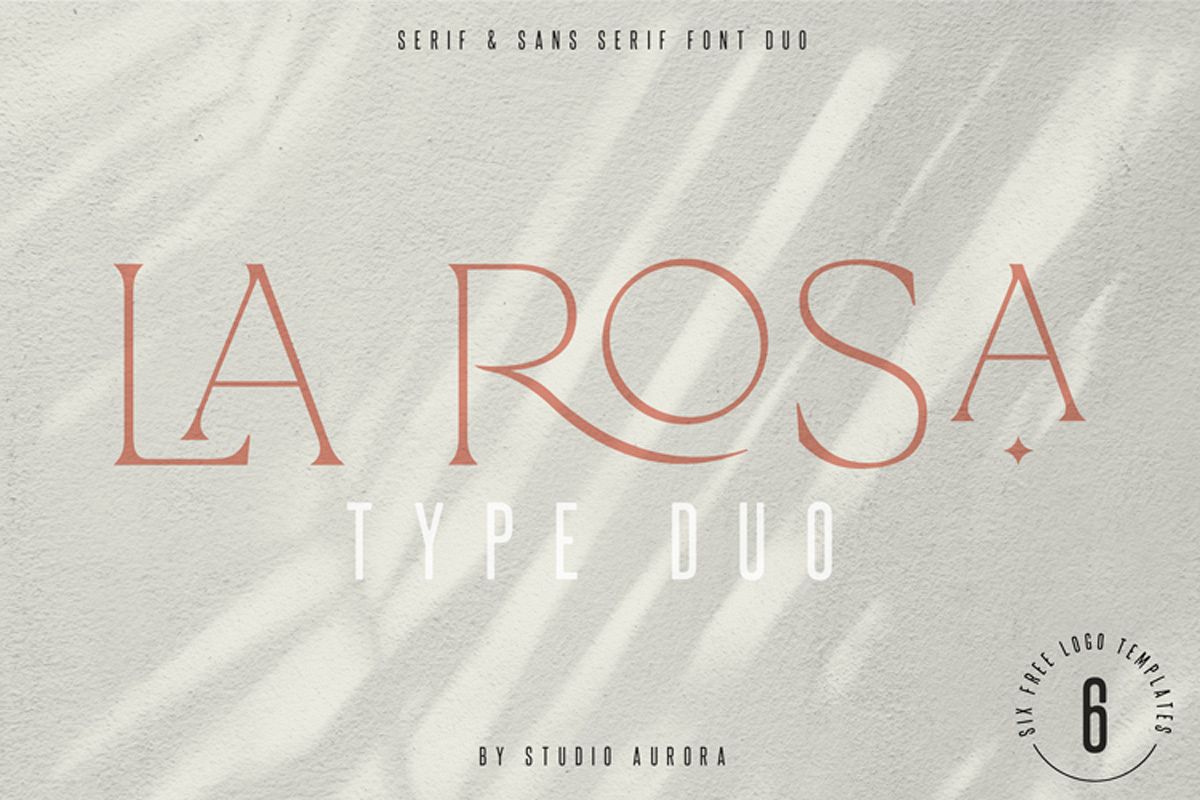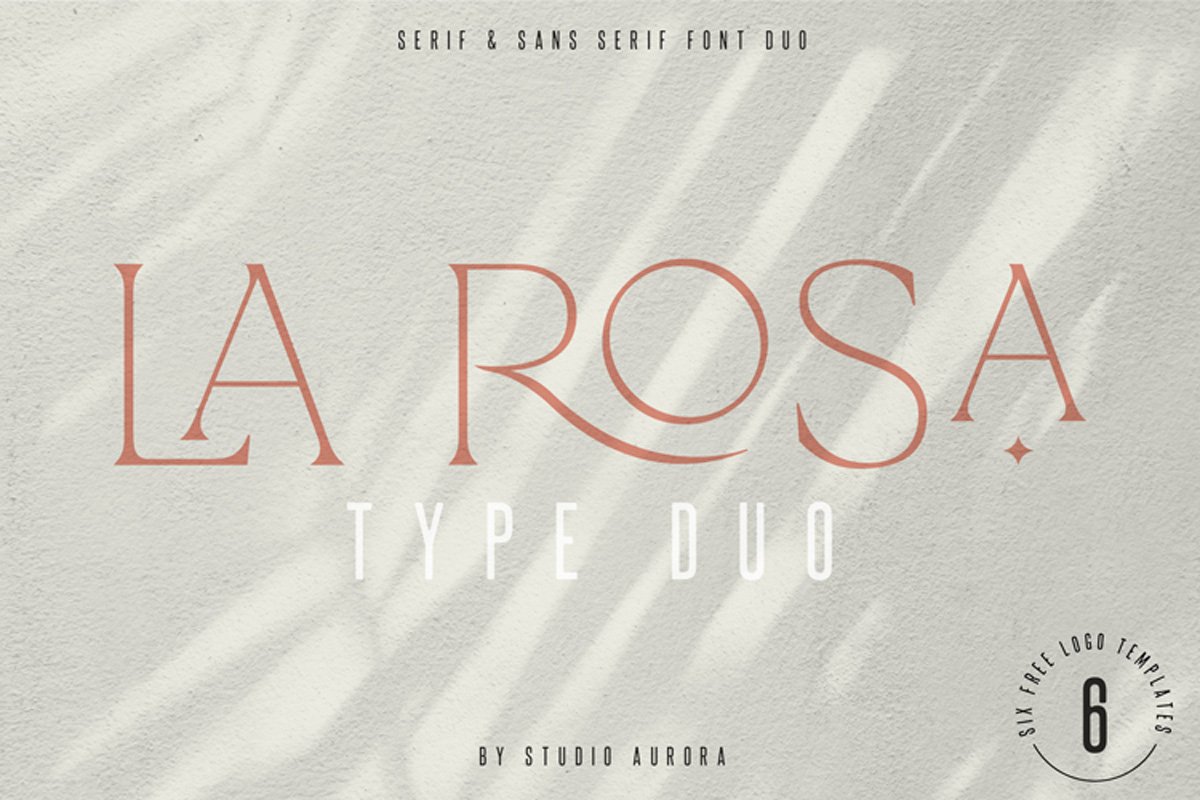
La Rosa Elegant Unique Serif Font
LaRosa
La Rosa is a contemporary, elegant serif typeface, suitable for use in title design such as invitations, signboards, book titles, stationery designs, quotes, branding, logos, greeting cards, packaging designs, posters, and more. It comes with lowercase letters that are perfect for body copy in books or digitally on websites and apps.Files Included: